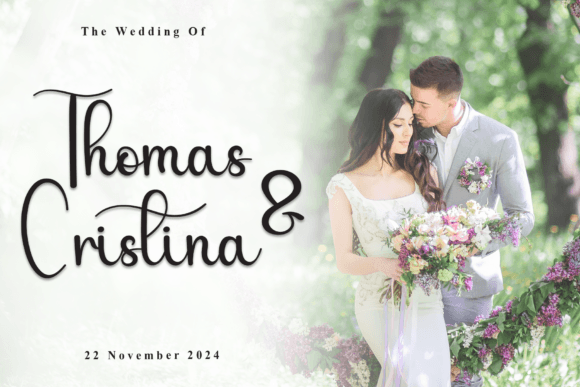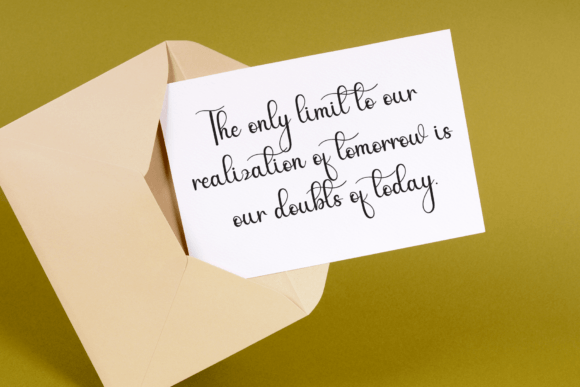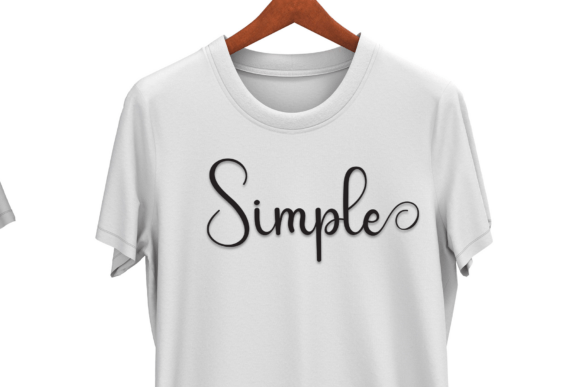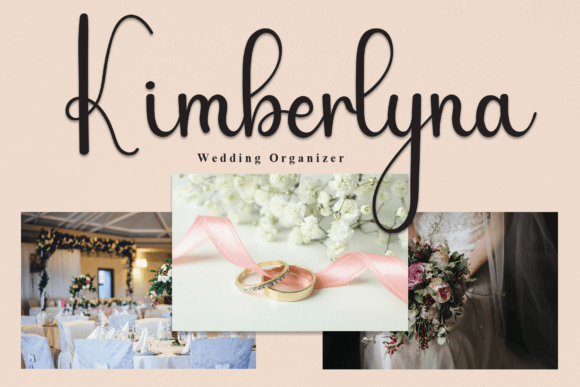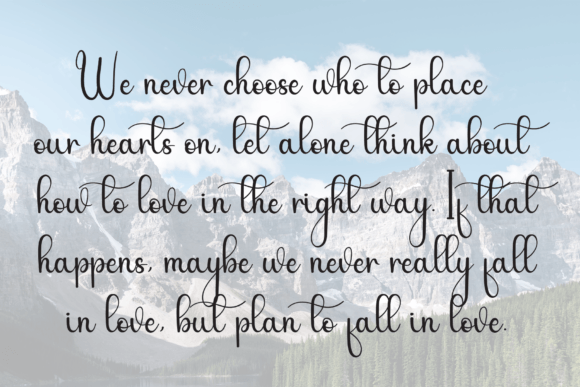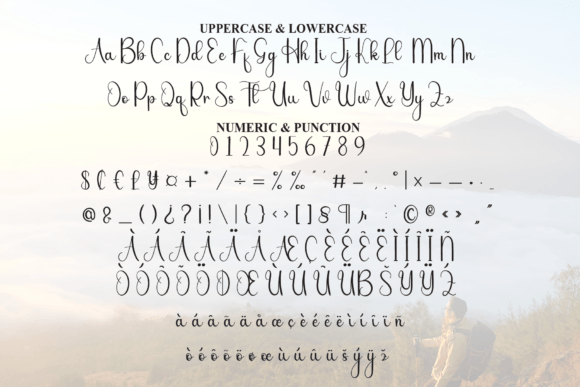
Find Your Perfect Match: Introducing Adventure Font
Have you ever been stuck staring at a blank page, struggling to find the right words to express your creativity? We’ve all been there, but today we’re excited to introduce you to a font that’s sure to break the ice and bring a smile to your face – Adventure Font. This delightful handwritten display font is the perfect addition to any designer’s toolkit, designed to infuse a sense of joy and friendliness into your work.
With its playful and charming design, Adventure Font is ideal for wedding invitations, cards, and any design piece that requires a sprinkle of cheer. Whether you’re a seasoned designer or just starting out, this wholesome font is sure to make your designs radiate a heartwarming aura. By incorporating Adventure Font into your work, you’ll add a personal touch that will leave a lasting impression on your audience.
Adventure Font Key Features
- Unique Characteristics: Adventure Font features a mix of modern and vintage elements, with intricate details and ornaments, making it perfect for adventurous and rustic designs
- Weight and Style Options: Offers 5 weights (Light, Regular, Medium, Bold, and Heavy) and 3 styles (Regular, Italic, and Bold Italic), providing ample flexibility for designers
Designer Review: Adventure Font
Overall, I found the Adventure Font to be an interesting and visually appealing choice for a variety of design projects. The font has a fun, adventurous vibe that can add a sense of excitement to any text. ✨ Here are some of the things that I liked about it:
- The font has a unique, handwritten feel that sets it apart from more traditional fonts.
- The letterforms are well-designed and easy to read, even at smaller sizes.
- The font includes a wide range of language support, making it a great choice for international projects.
However, I did encounter some limitations that may impact its usability in certain situations. ⚠️ Here are a few things to consider:
- The font may be too playful for more formal or professional projects.
- The font’s handwritten feel can sometimes make it difficult to read at very small sizes.
- The font does not include any bold or italic weights, which may limit its versatility.
Overall, I would recommend the Adventure Font for projects where a fun, adventurous vibe is desired. However, it may not be the best choice for more formal or professional projects.
Getting the Most Out of Adventure Font
To get the most out of Adventure Font, try the following tips:
- Use it for headings and titles to add a sense of adventure and excitement.
- Pair it with bold or italic font styles to add emphasis and contrast.
- Experiment with different font sizes and colors to create a visually appealing design.
Adventure Font is commonly used for:
- Travel and adventure branding.